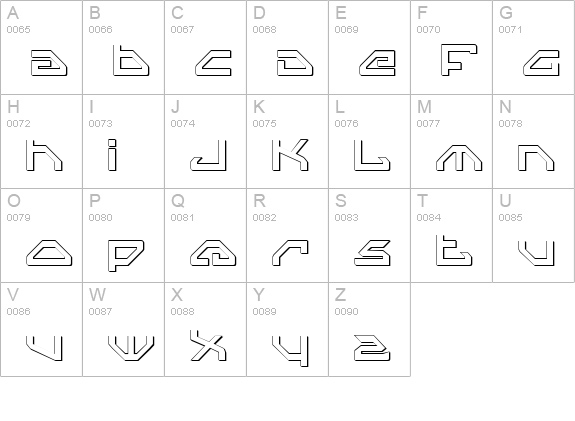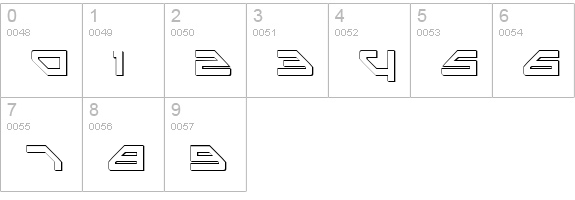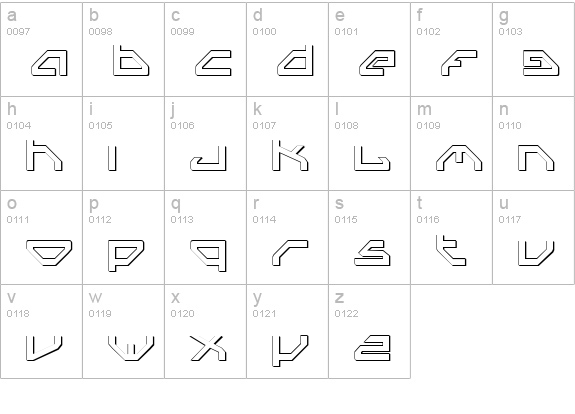
Spylord Outline font is a stunning display typeface that combines elegance with a touch of mystery. Its sharp and sleek lines make it a perfect choice for any design project that requires a bold and impactful look. This font is sure to capture attention and leave a lasting impression. The unique and intricate outline design of Spylord Outline font adds a sense of intrigue and sophistication to any text. It is perfect for headlines, logos, posters, and other creative projects that demand a strong visual presence. What makes Spylord Outline font even more appealing is that it is available for free download at FontsMarket.com. Yes, you heard it right! This remarkable font is freely accessible, allowing you to add a touch of elegance and professionalism to your designs without breaking the bank. Whether you are a professional designer or a beginner exploring the world of typography, Spylord Outline font is a must-have addition to your font collection. Its versatility and eye-catching style will elevate your designs to new heights, making them stand out from the crowd. So don't wait any longer! Head over to FontsMarket.com and get your hands on the Spylord Outline font today. Unleash your creativity and let this remarkable typeface take your designs to the next level.